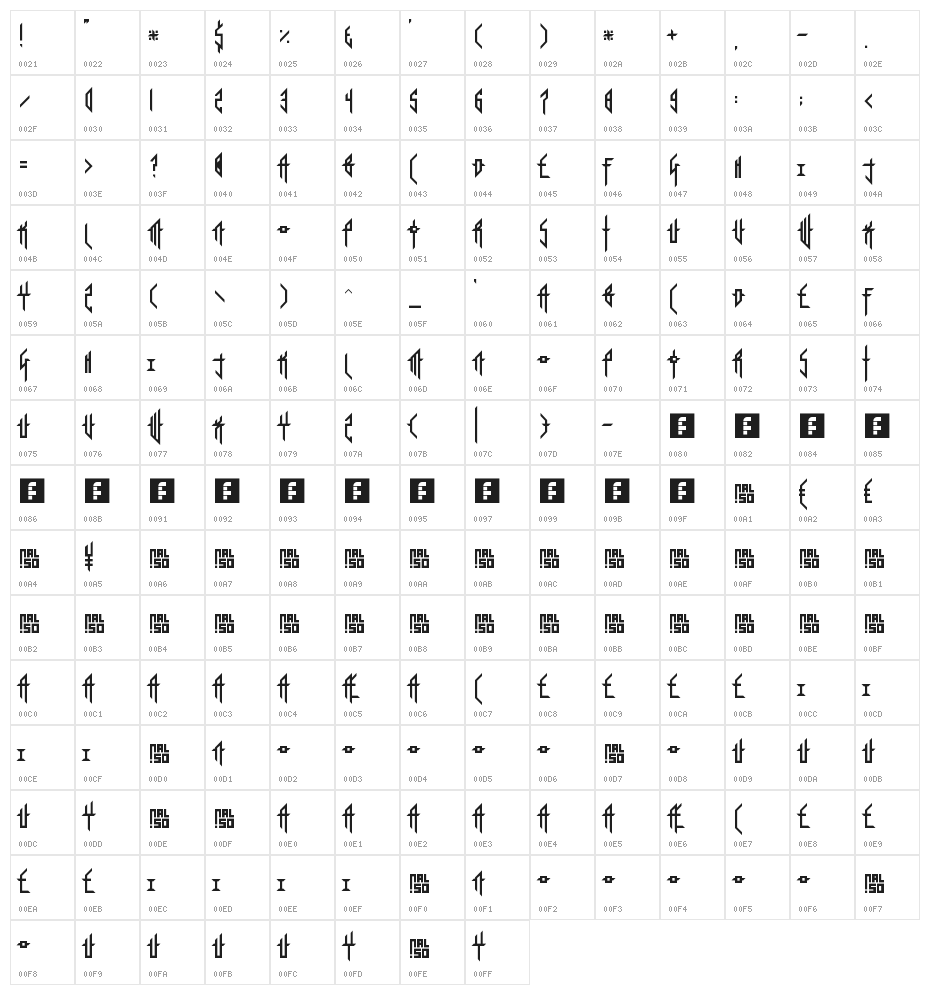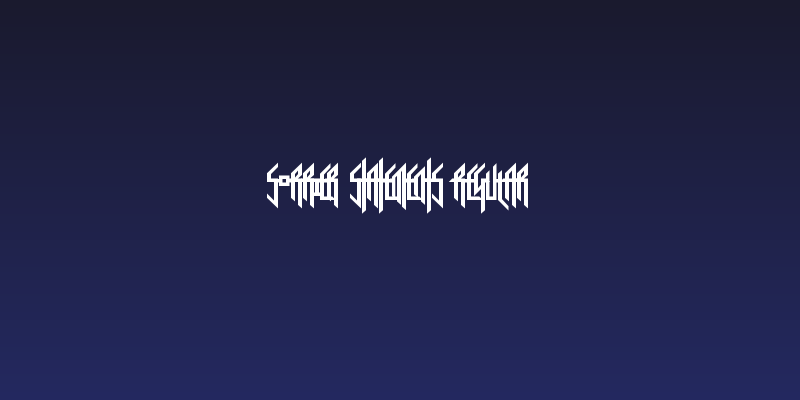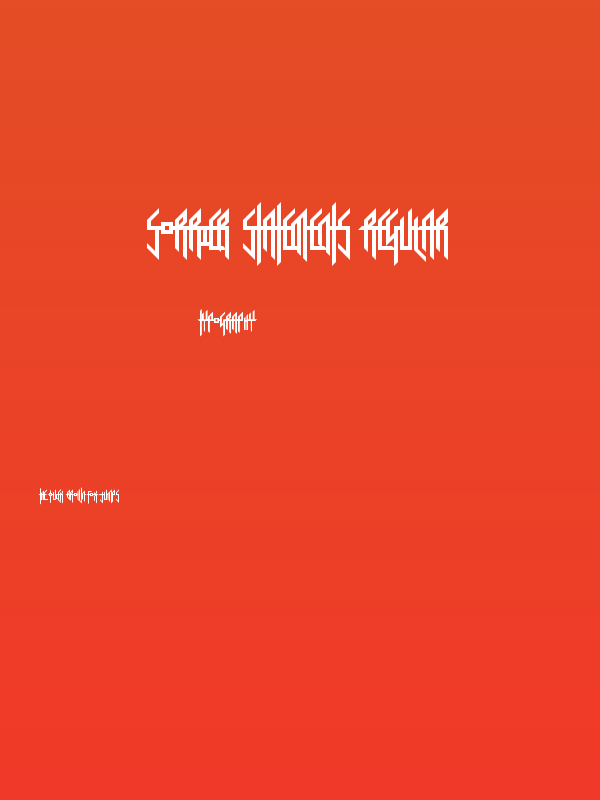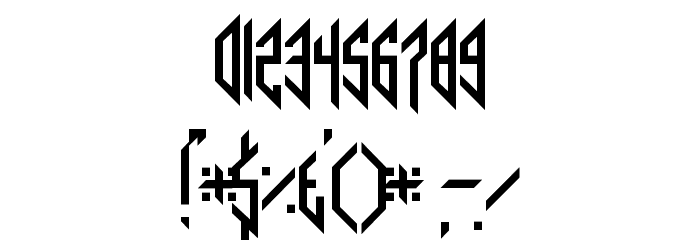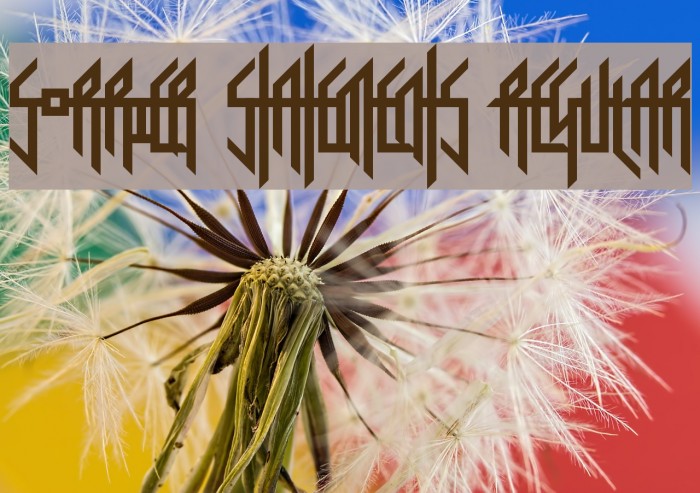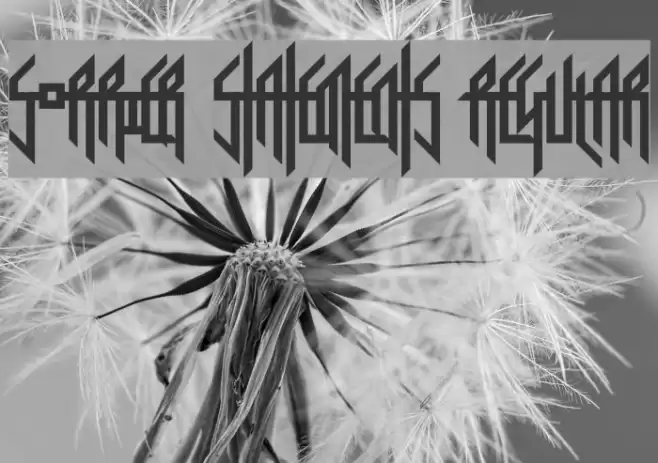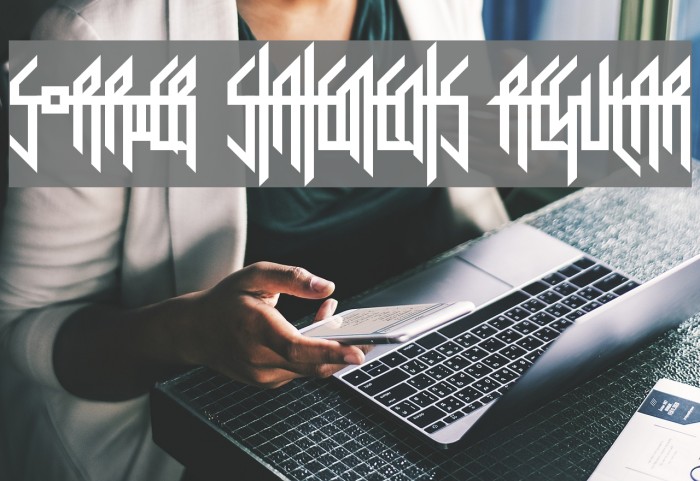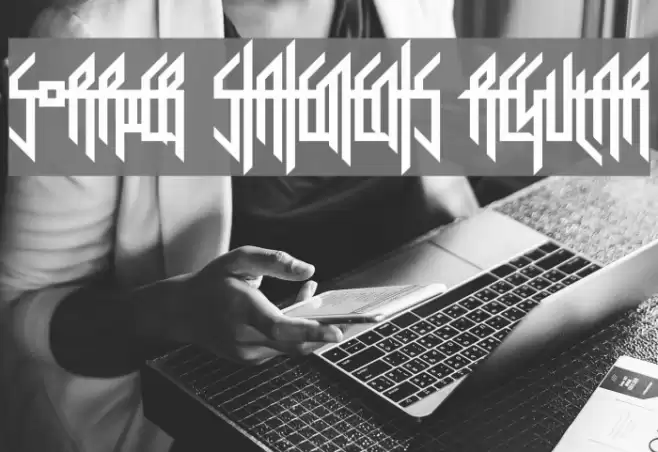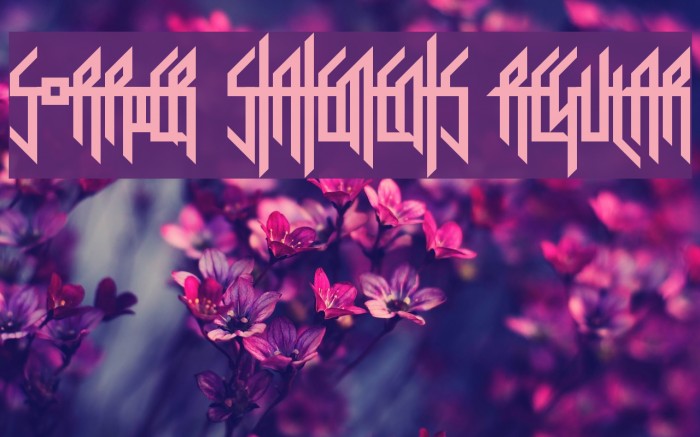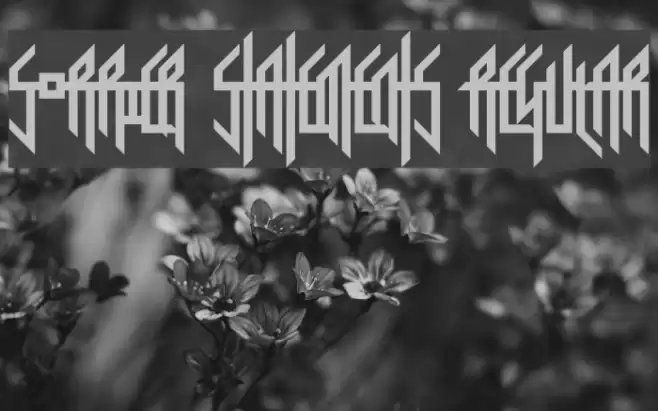
Sorrier Statements Regular Font
This font features a highly stylized and angular design, reminiscent of ancient runic or tribal scripts. The characters are composed of sharp, intersecting lines that create a sense of movement and energy. The uppercase and lowercase letters maintain a consistent height, contributing to a uniform appearance. Numbers and special characters follow the same angular theme, ensuring cohesion across all elements. The font's unique style makes it particularly eye-catching and suitable for projects that require a bold, distinctive look.
| Proposed Projects | Ideal for album covers, posters, tattoos, and branding that seeks a bold, unconventional look. |